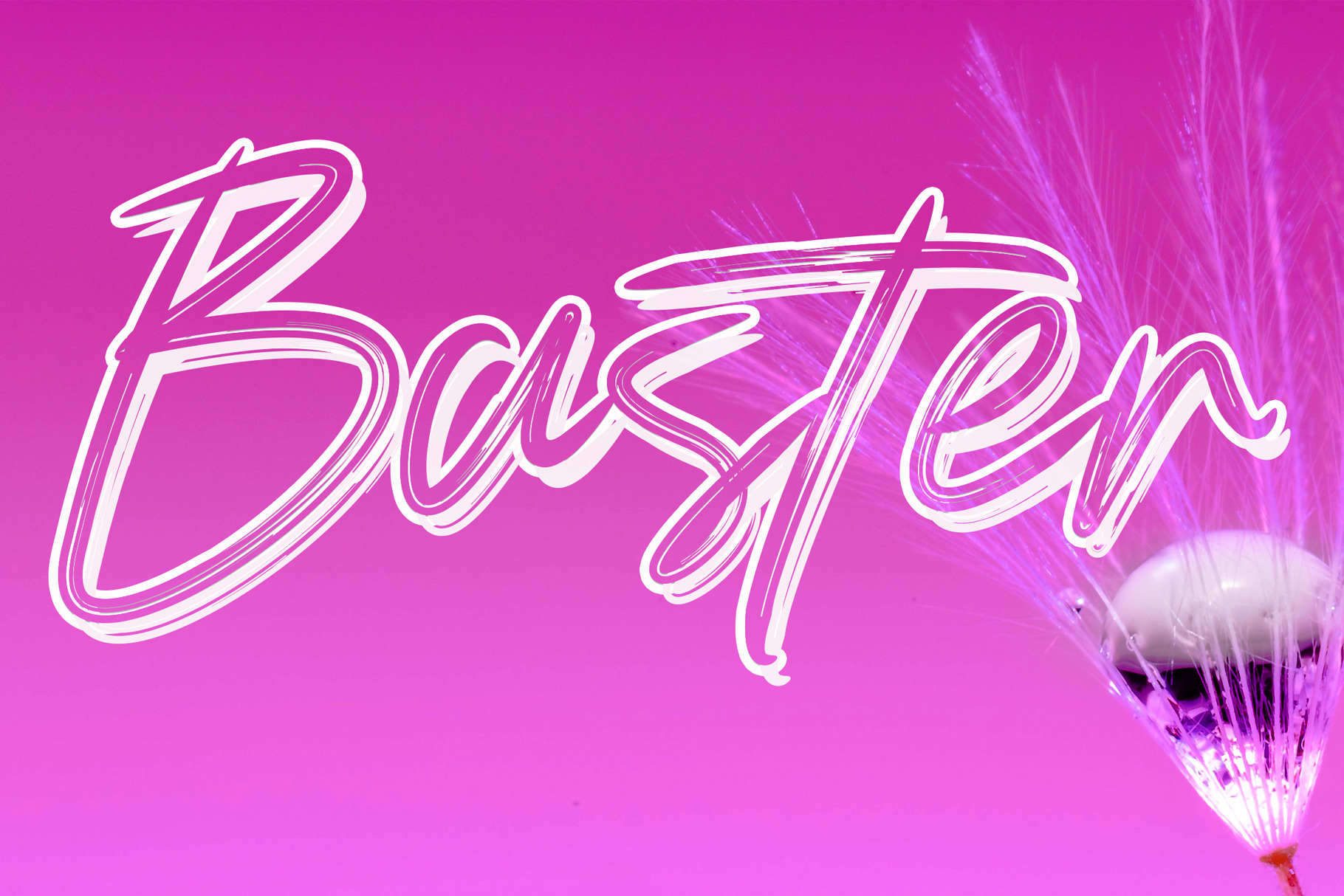
Baster is a cool, simple and playful display font. Incredibly versatile, this font fits a wide pool of designs, elevating them to the highest levels. Add this font to your favorite creative ideas and notice how it makes them come alive!